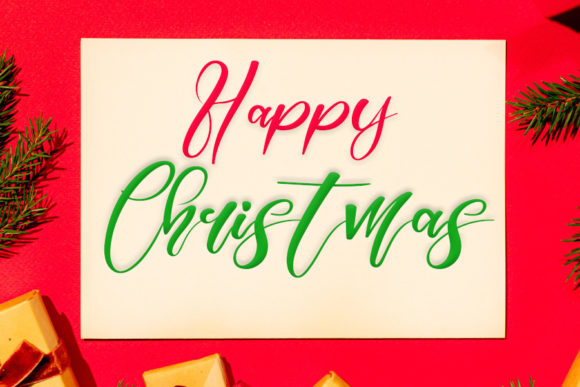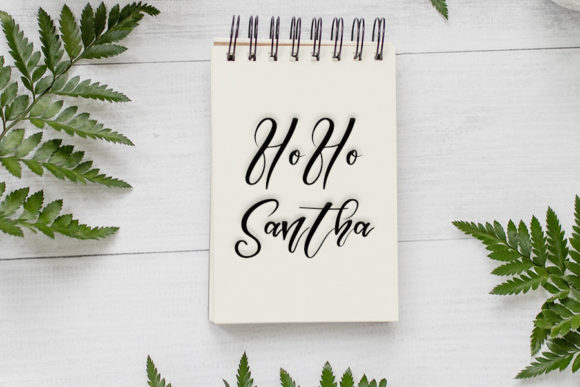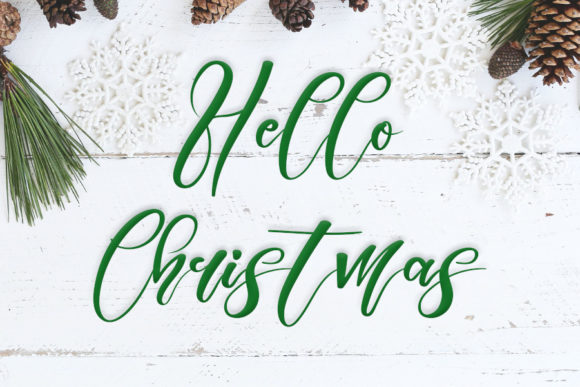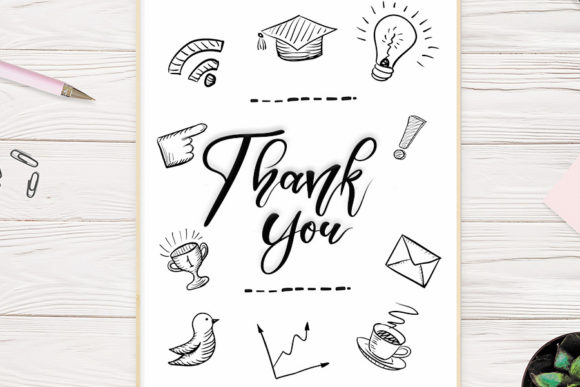
Introducing Christmas Font: The Sweet and Delicate Handwritten Font for Your Design Needs
Are you looking for a font that exudes romance, elegance, and a touch of whimsy? Look no further than Christmas Font, a sweet and delicate handwritten font that’s perfect for a variety of design projects. In this article, we’ll take a closer look at Christmas Font, its features, and how you can use it to add a personal touch to your designs.
What is Christmas Font?
Christmas Font is a beautiful, handwritten font that’s designed to evoke a sense of joy and festivity. Its dainty and delicate strokes make it perfect for creating romantic and personalized designs. Whether you’re looking to create wedding invitations, greeting cards, or any other design that requires a touch of elegance, Christmas Font is an excellent choice.
Key Features of Christmas Font
- Handwritten style: Christmas Font has a beautiful, handwritten style that’s perfect for creating personalized designs.
- Dainty and delicate strokes: The font’s dainty and delicate strokes give it a romantic and whimsical feel.
- Versatile: Christmas Font can be used for a variety of design projects, including wedding invitations, greeting cards, and more.
- Elegant and sophisticated: The font’s elegant and sophisticated design makes it perfect for creating high-end designs.
How to Use Christmas Font in Your Designs
Christmas Font is an incredibly versatile font that can be used in a variety of design projects. Here are a few ideas to get you started:
Wedding Invitations
Christmas Font is perfect for creating beautiful and romantic wedding invitations. Its delicate strokes and elegant design make it an excellent choice for formal and informal wedding invitations alike.
Greeting Cards
Whether you’re creating Christmas cards, birthday cards, or any other type of greeting card, Christmas Font is a great choice. Its whimsical and romantic feel makes it perfect for creating cards that are both personal and special.
Stationery and Gift Tags
Christmas Font is also great for creating stationery and gift tags. Its elegant design and delicate strokes make it perfect for adding a personal touch to your correspondence and gifts.
Tips for Using Christmas Font Effectively
Here are a few tips for using Christmas Font effectively in your designs:
- Use it sparingly: While Christmas Font is a beautiful font, it can be overwhelming if used too much. Use it sparingly to add a touch of elegance and whimsy to your designs.
- Pair it with other fonts: Christmas Font pairs well with other fonts, such as serif and sans-serif fonts. Experiment with different font combinations to find the perfect look for your design.
- Adjust the size and color: Experiment with different sizes and colors to find the perfect look for your design. Christmas Font can be used in a variety of sizes and colors to create a unique and personalized look.
Christmas Font is a beautiful and versatile font that’s perfect for a variety of design projects. Its delicate strokes and elegant design make it an excellent choice for creating romantic and personalized designs. Whether you’re a designer or crafter, Christmas Font is a great addition to your font collection. So why not give it a try and see how it can add a touch of whimsy and elegance to your designs?
With its sweet and delicate handwritten style, Christmas Font is sure to become a favorite in your design toolkit. So go ahead, get creative, and make your designs shine with Christmas Font!